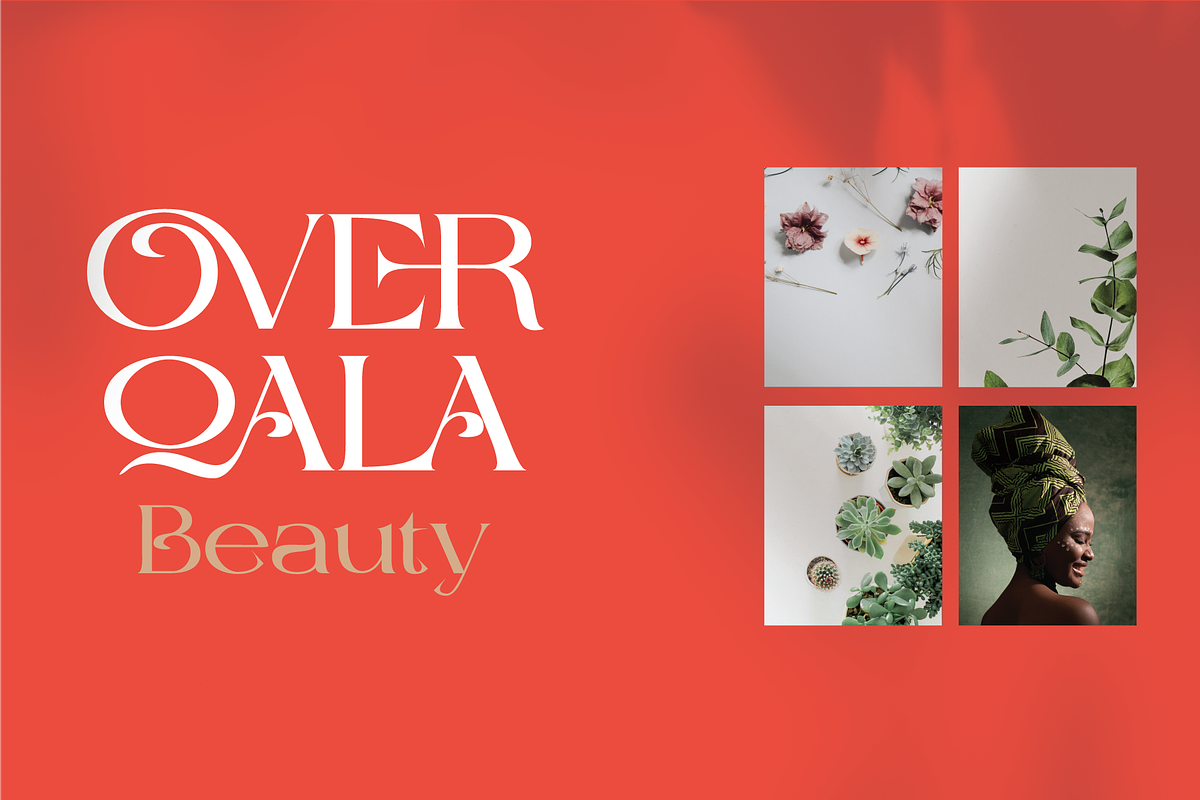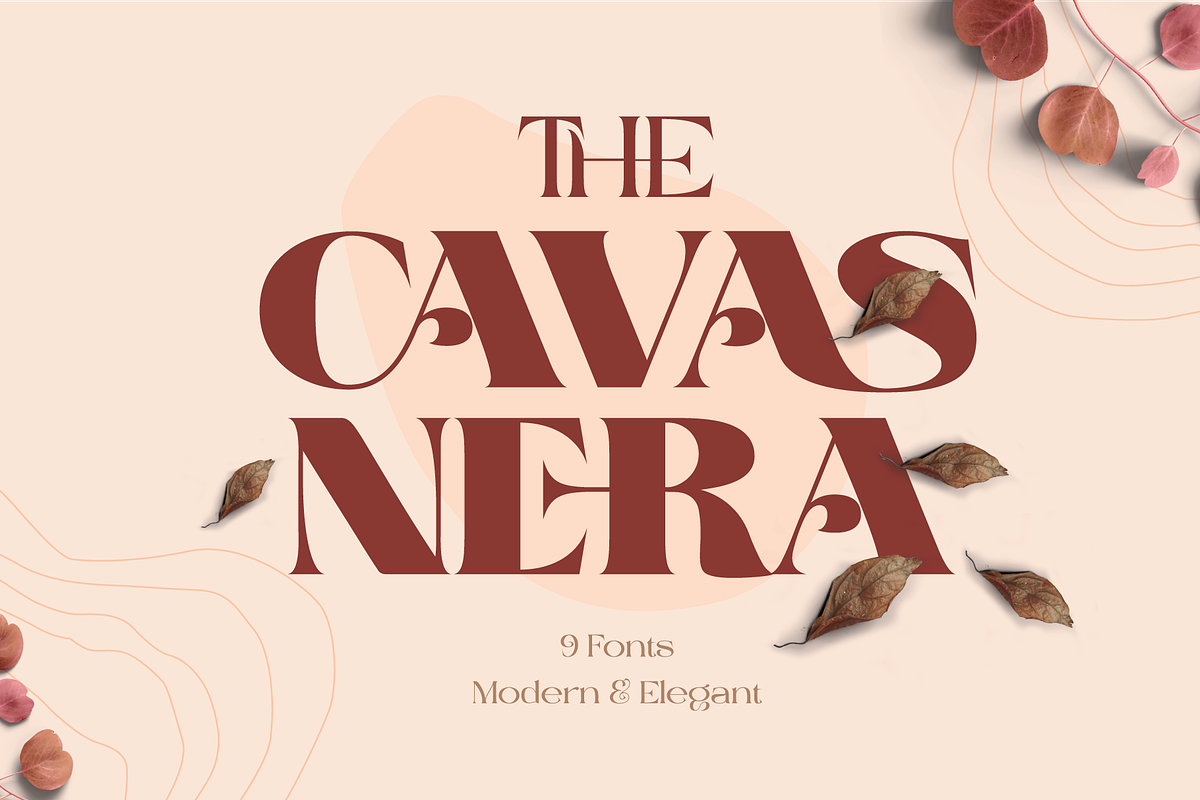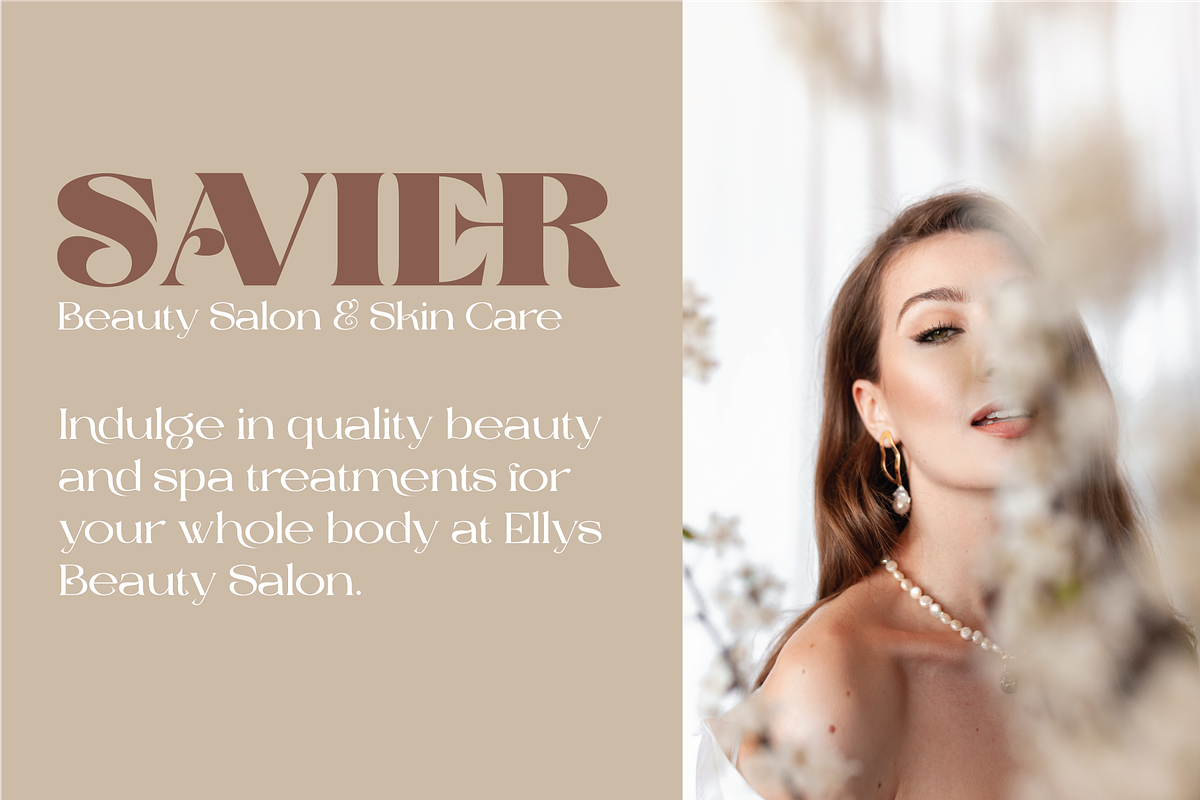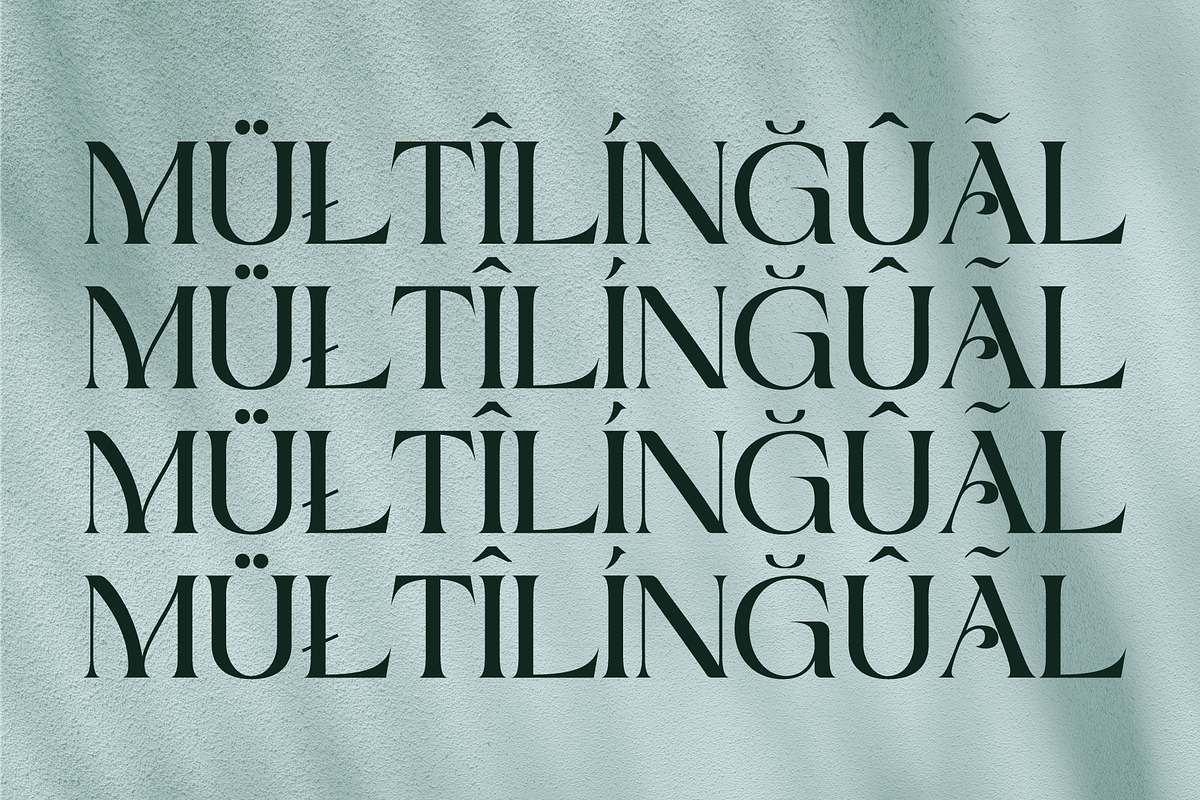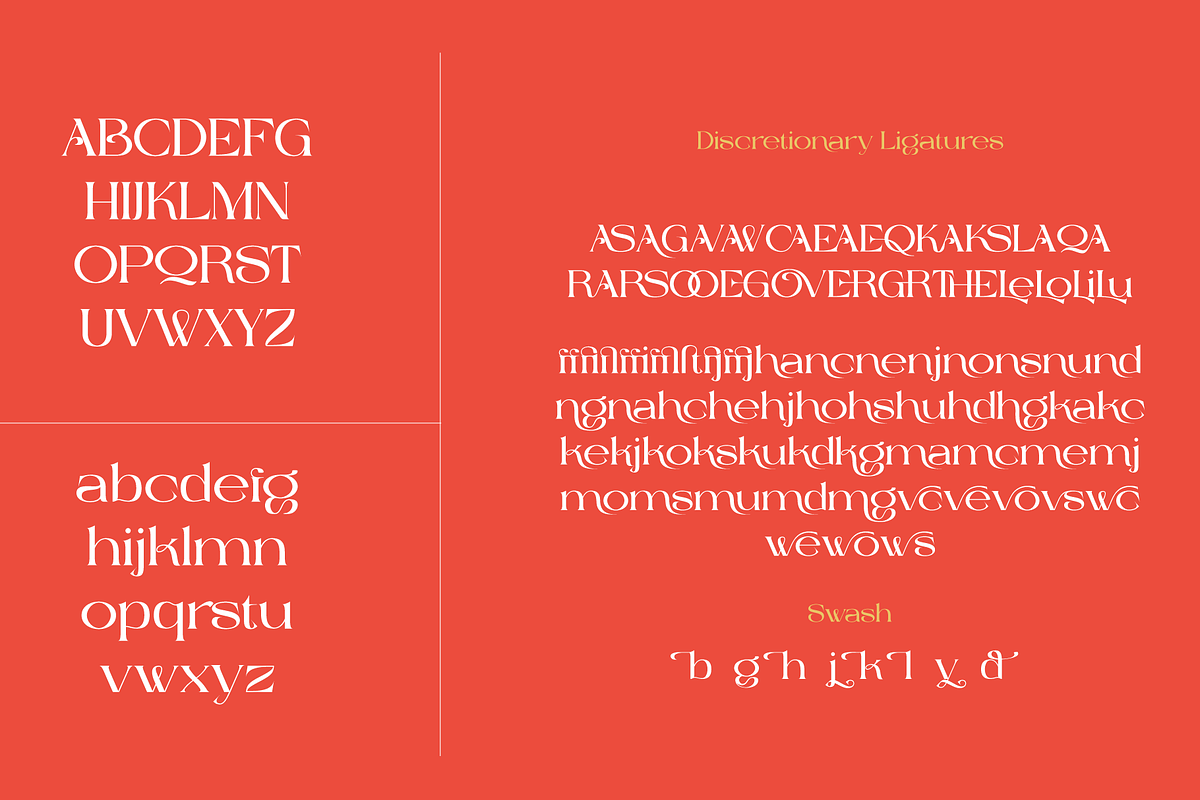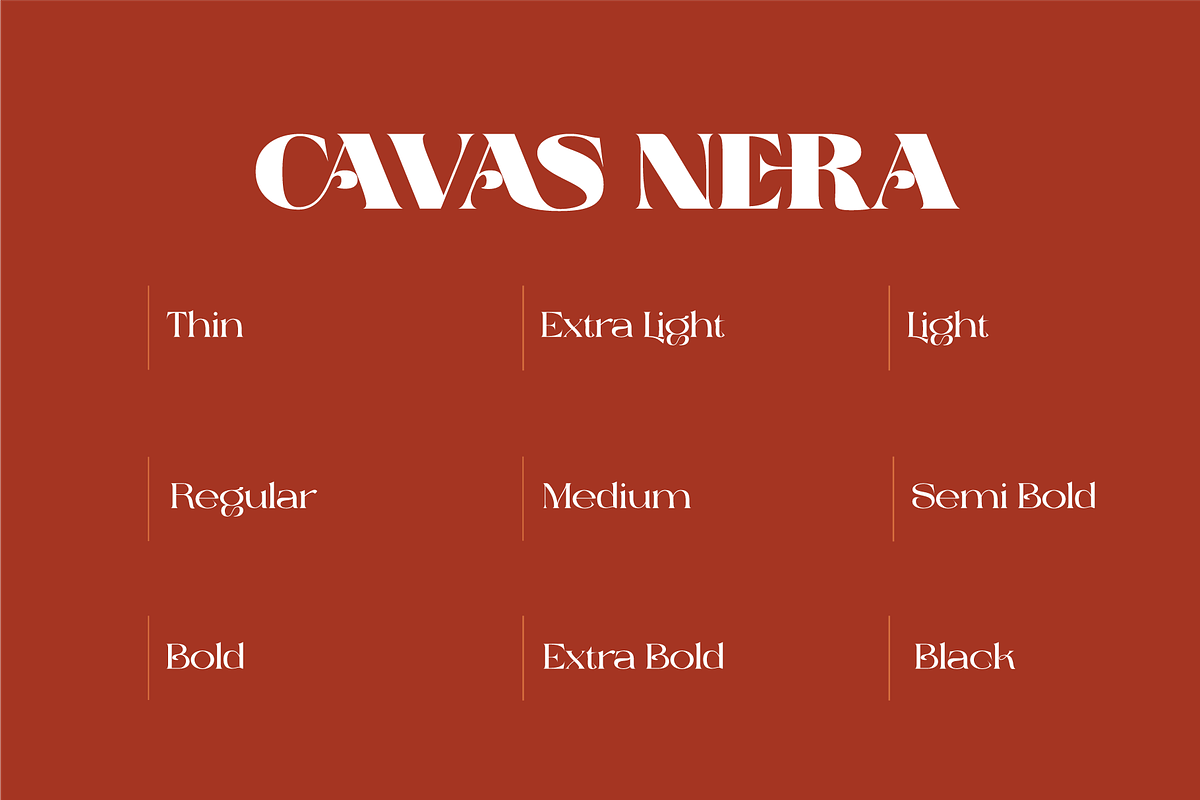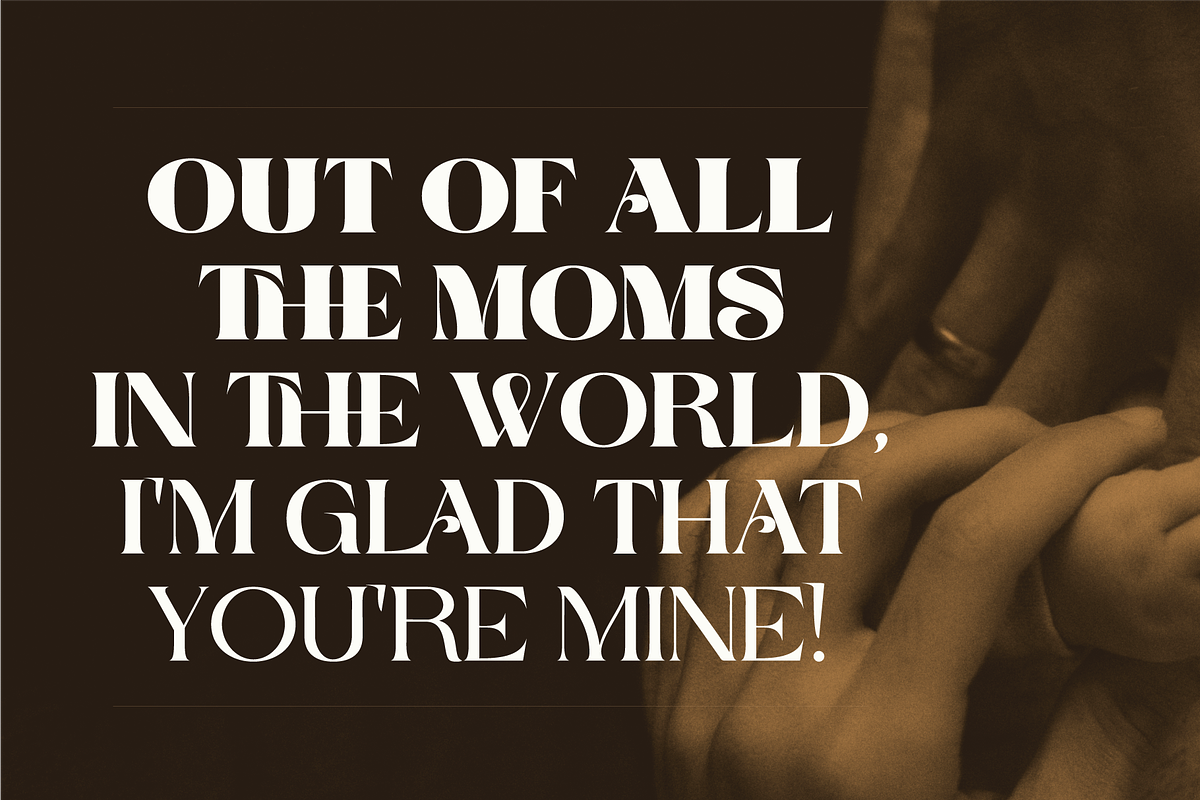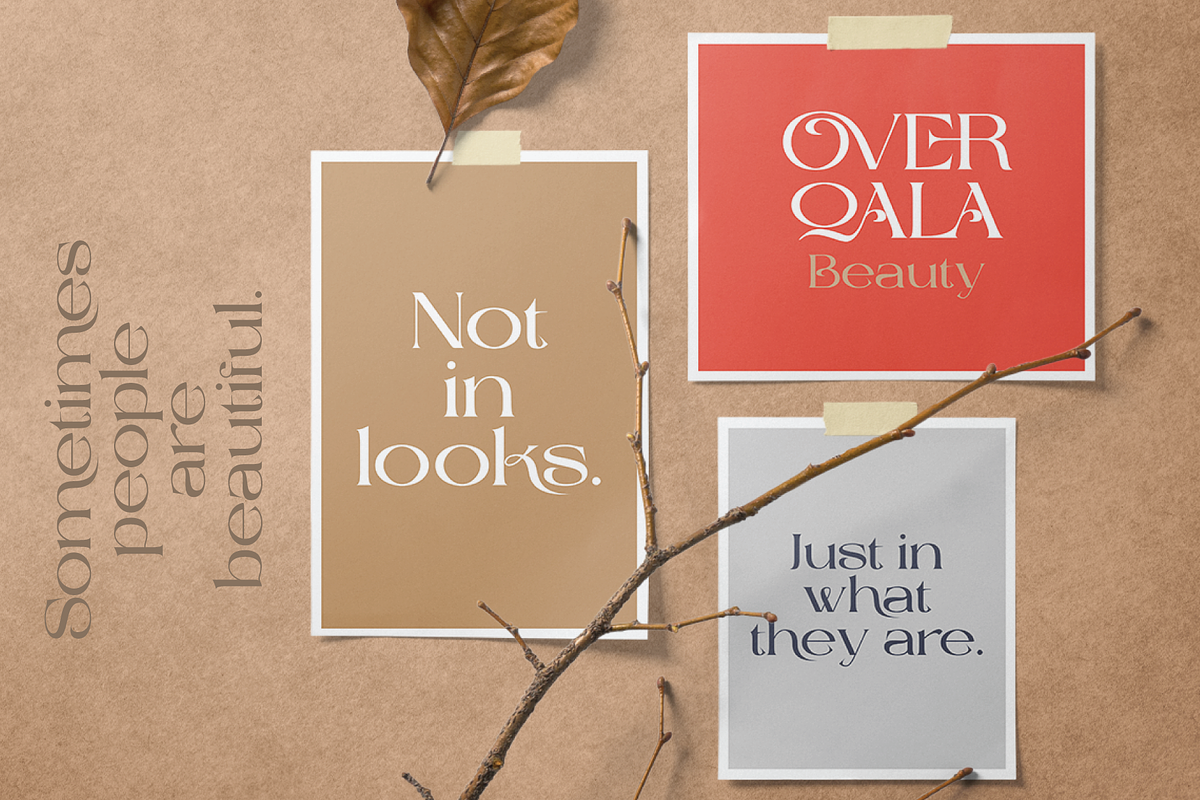
The Cavas Nera 9 Font
The Cavas Nera 9 Font modern & elegant font with discretionary ligatures that give each word a different shape. Also contains a swash with an elegant, contrasting and clean, perfect for logo designs, posters and various types of promotional media.